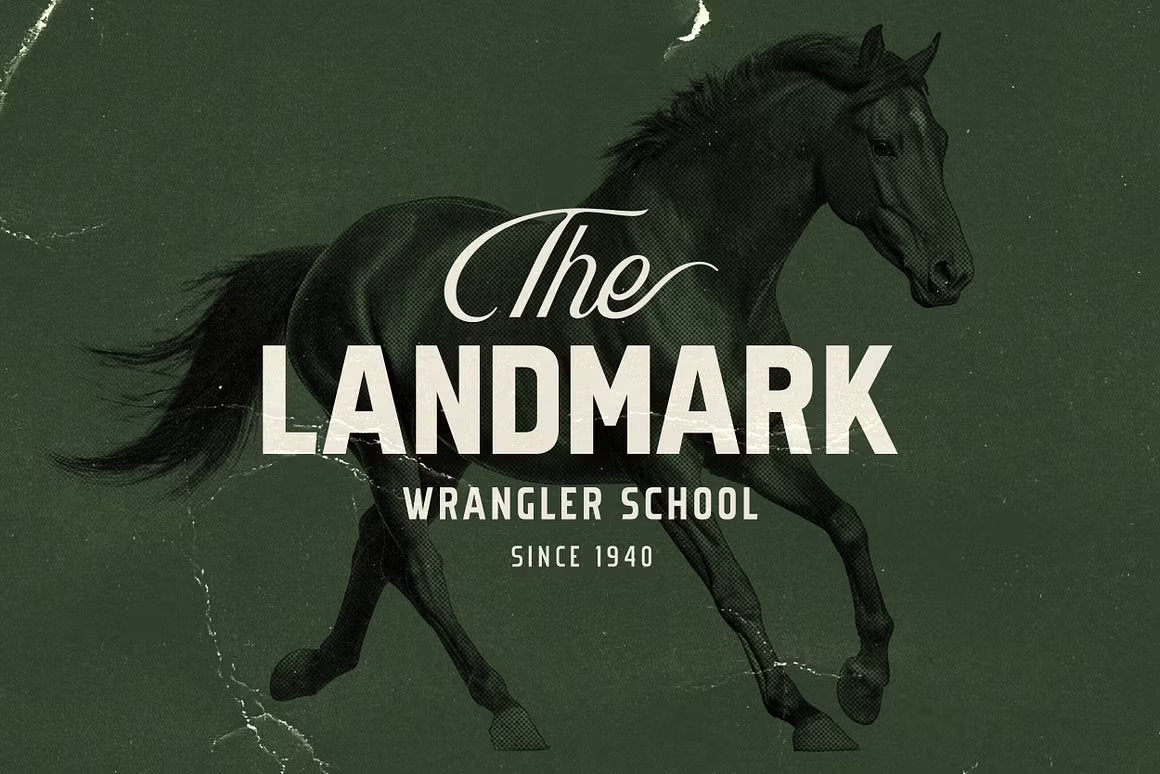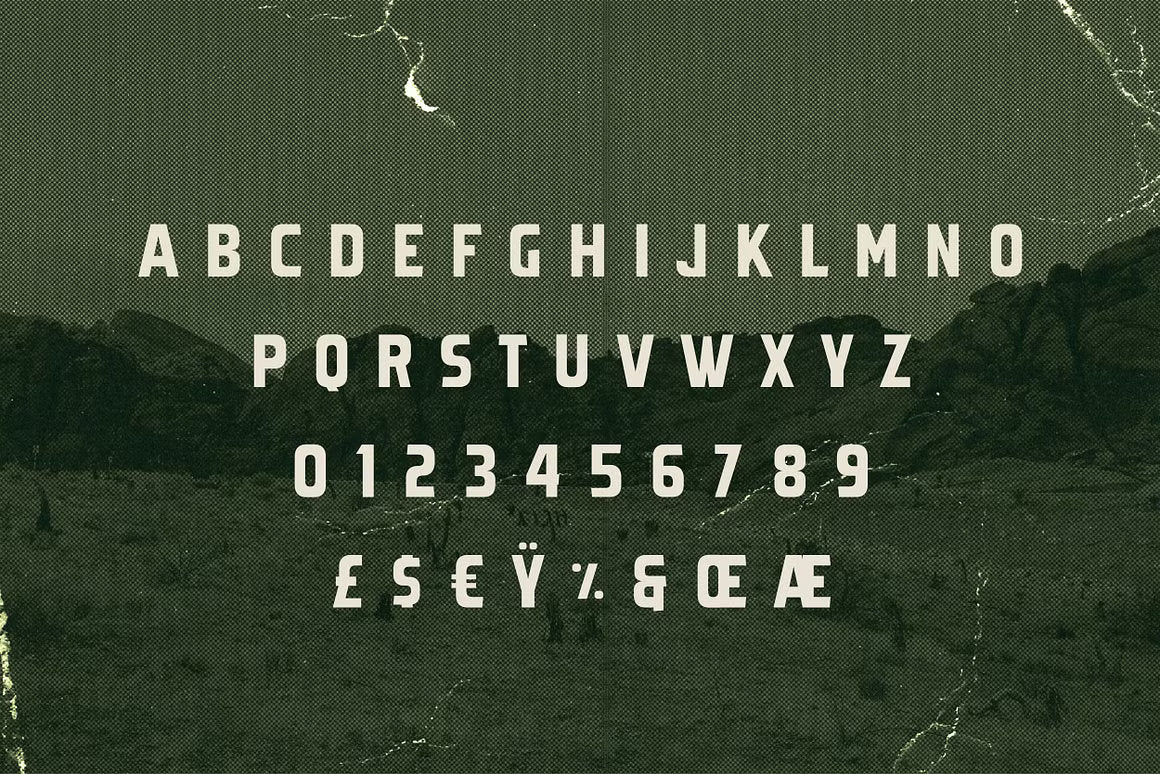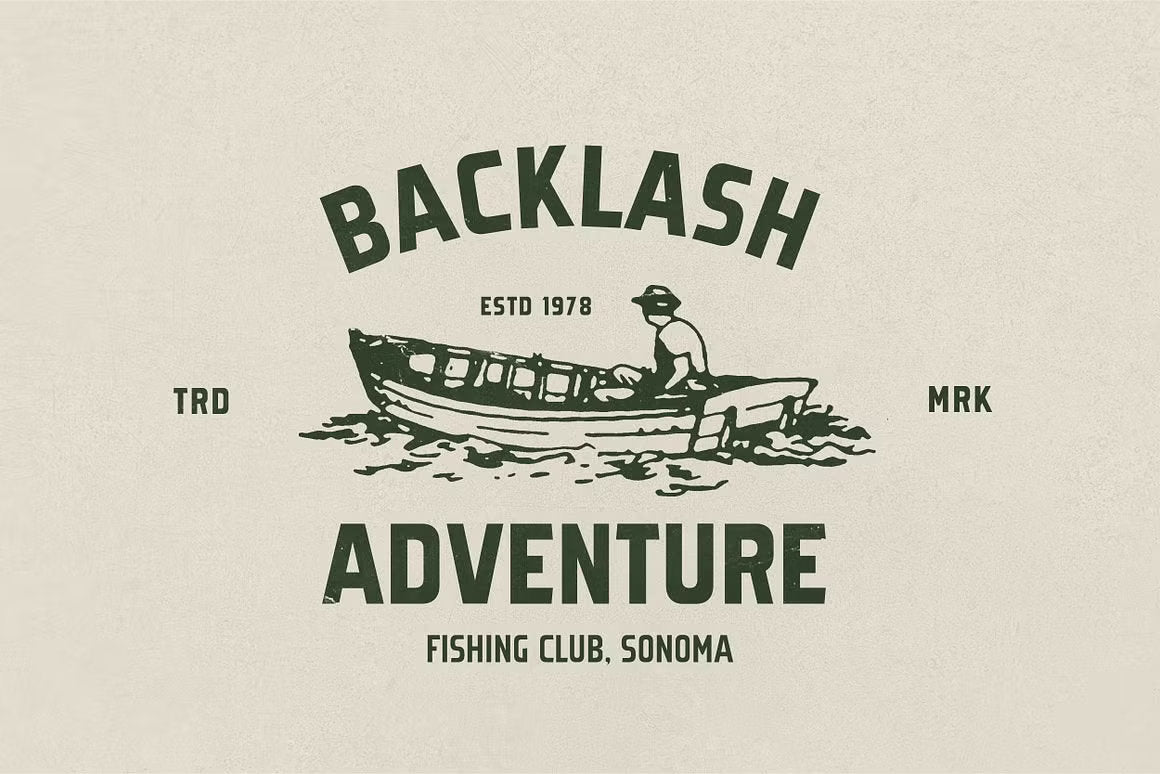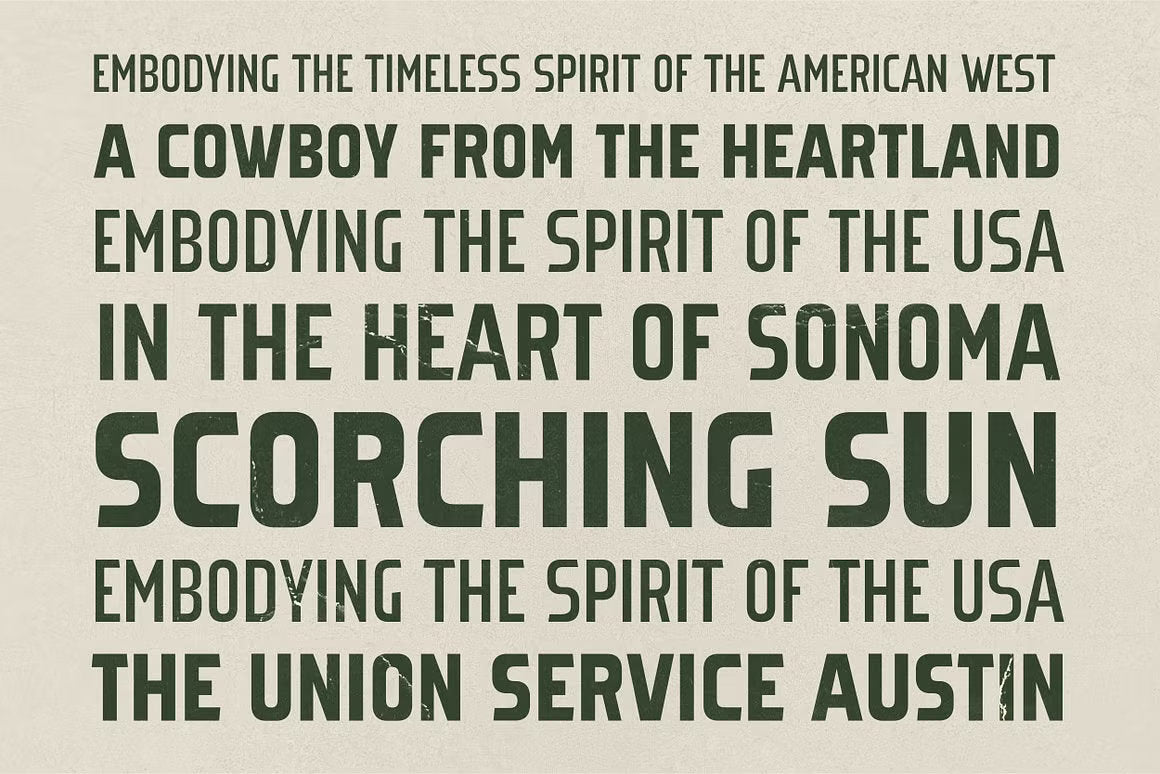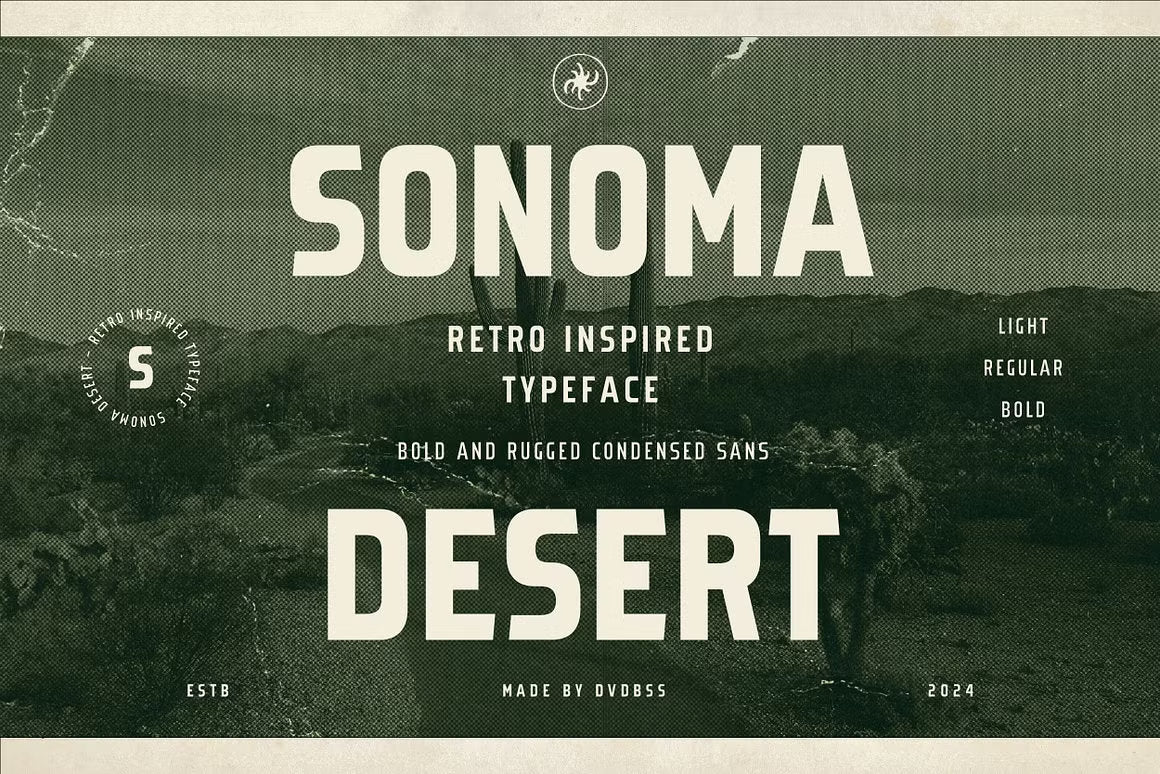
Sonoma Desert Typeface
π΅ Introducing Sonoma Desert β a bold and rugged condensed sans serif inspired by the sun-faded signs and forgotten roads of the American Southwest.
With its retro charm and no-nonsense structure, Sonoma Desert captures the spirit of adventure, grit, and vintage Americana. Perfect for logos, headlines, posters, apparel, and branding that calls for a touch of nostalgia and a strong visual impact.
Available in Light, Regular, and Bold, this typeface gives you the flexibility to create designs that are both versatile and unmistakably bold β whether you're going for subtle sophistication or full-throttle attitude.
Built for the wild at heart and the brave in design.
Sonoma Desert β where vintage meets velocity.